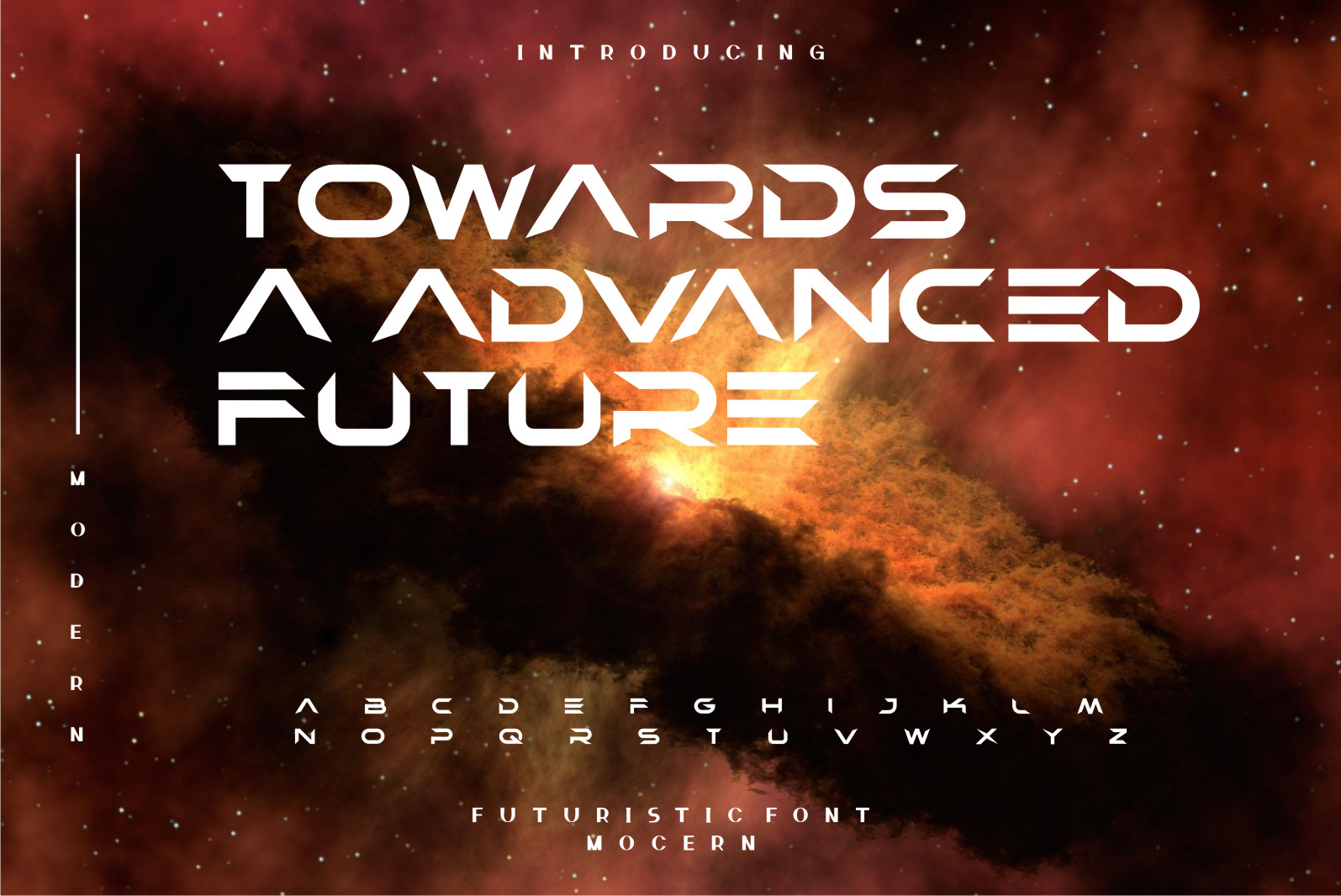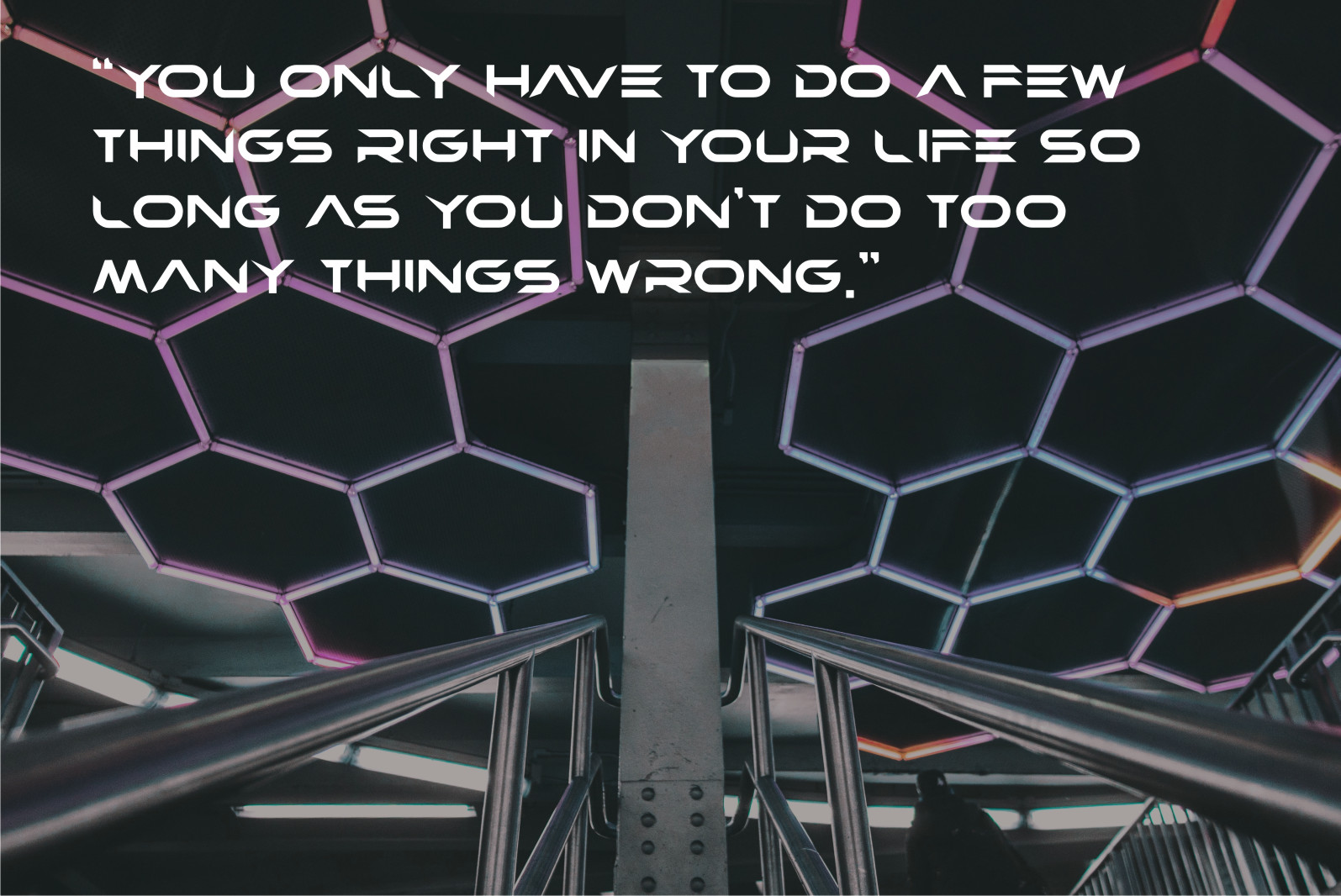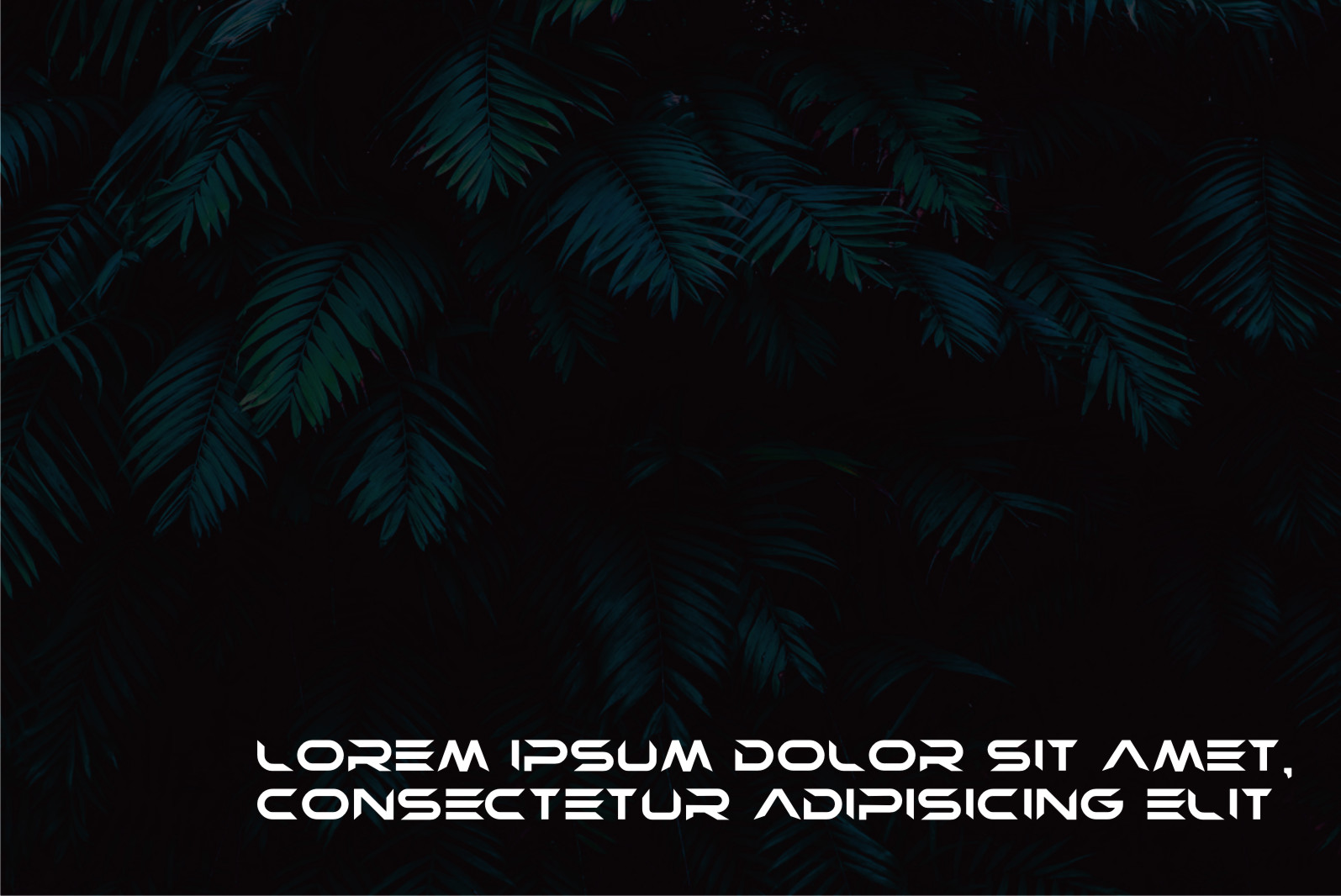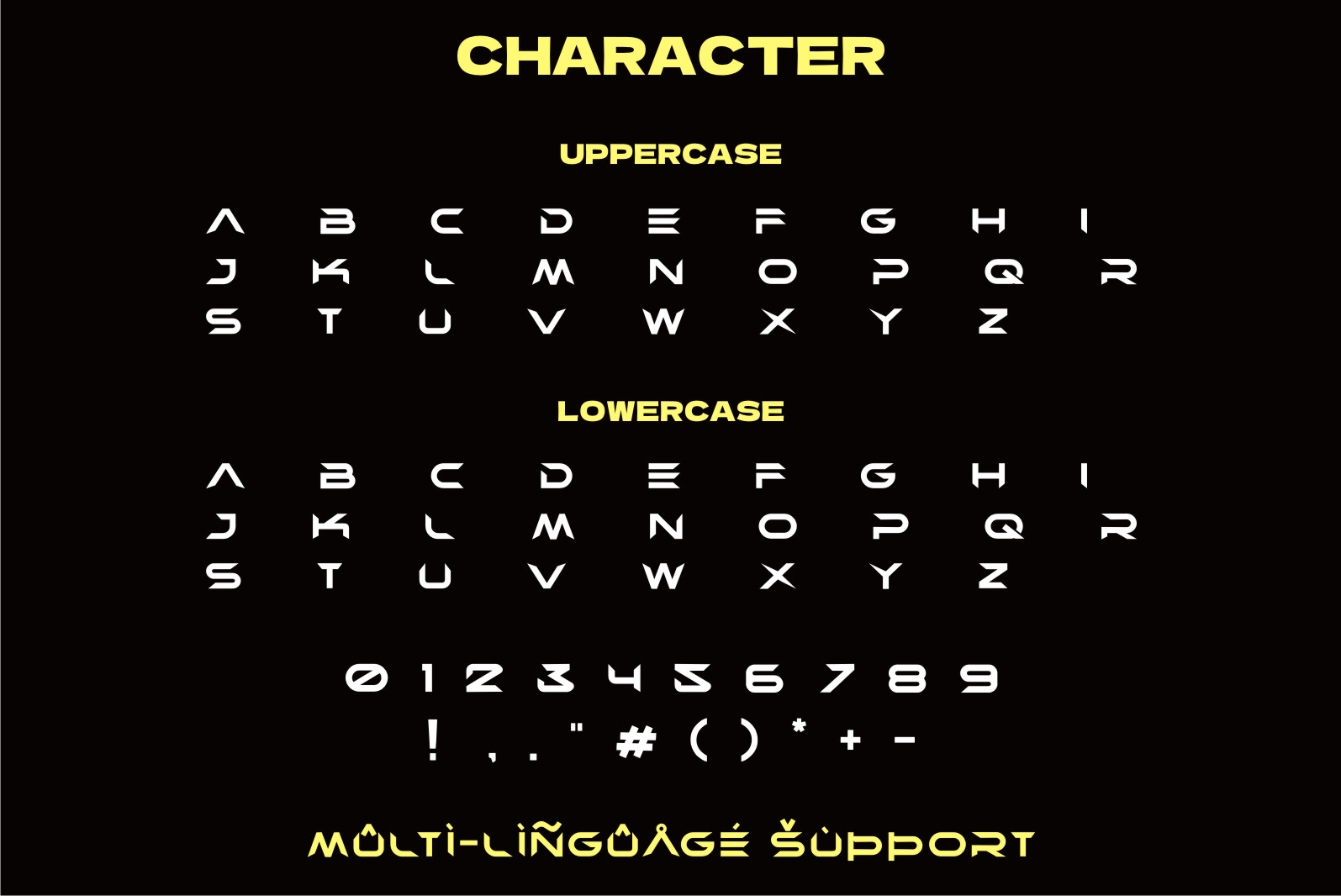
Rebras Font
Rebras Display Font
This is a cool and robotic-styled display font. This font is ideal for writing web designs, business cards, or pretty much anything else that requires a futuristic touch.